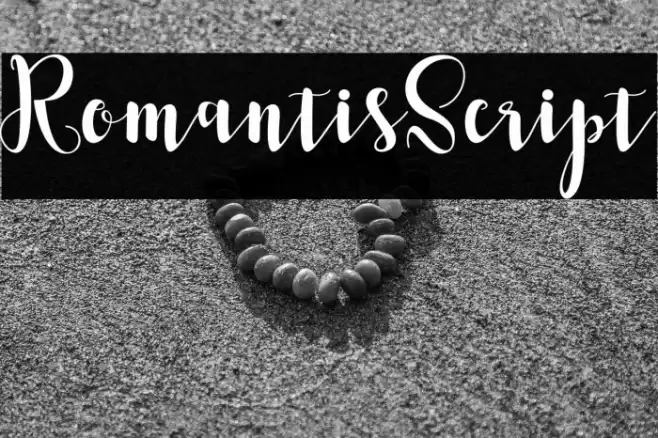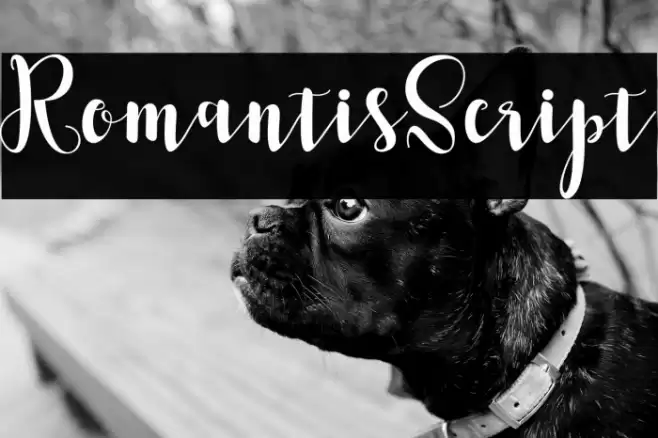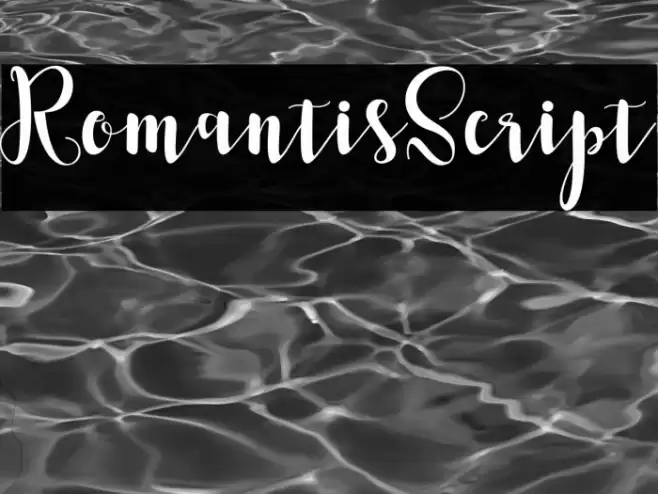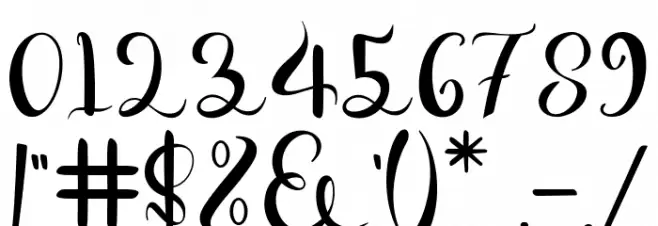
RomantisScript Font
RomantisScript Description
This font exudes elegance and sophistication with its flowing, cursive script style. The letters are intricately designed with smooth, sweeping curves and delicate loops, giving it a romantic and graceful appearance. The uppercase letters are particularly ornate, featuring elaborate flourishes that enhance their decorative appeal. The lowercase letters maintain a consistent flow, complementing the uppercase with their own subtle embellishments. The numerals and special characters are crafted with the same attention to detail, ensuring a cohesive look throughout. This font is perfect for projects that require a touch of elegance and charm.
An elegant and sophisticated cursive script font with flowing curves and delicate loops from Regular fonts.
- Font: RomantisScript
- Proposed Projects: Ideal for wedding invitations, greeting cards, branding, and any design that requires a romantic touch.
- Overall Style: Romantic
- Use Case: Logos, Invitations, Decorative text